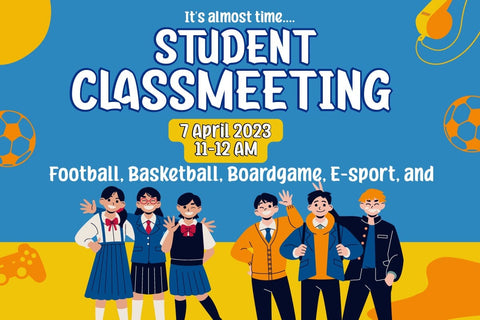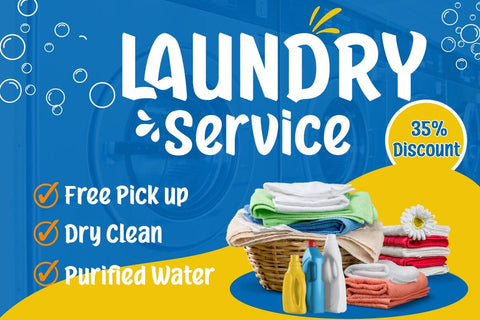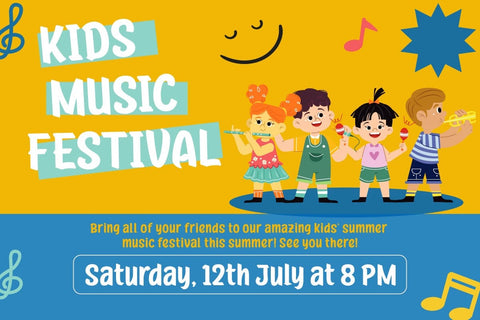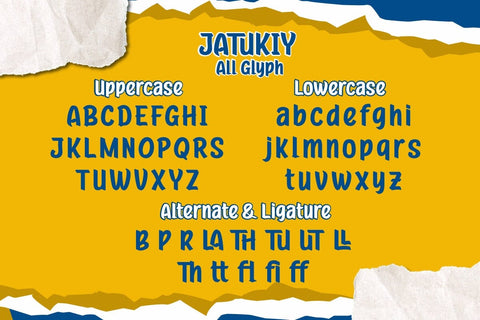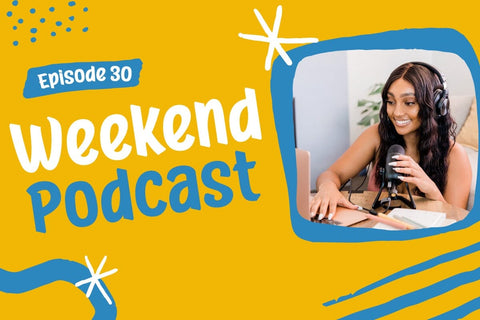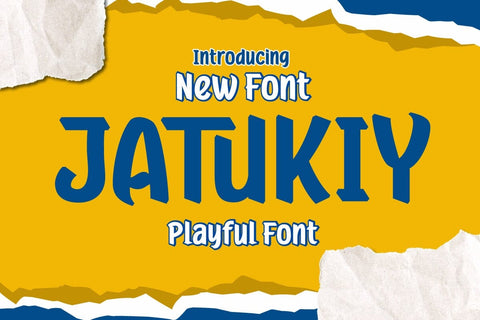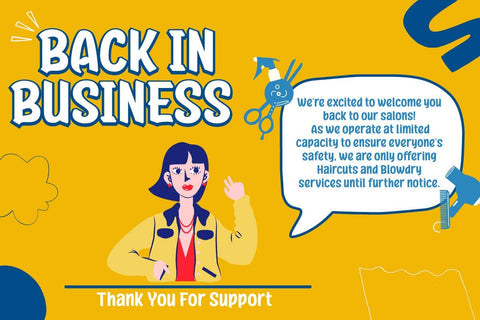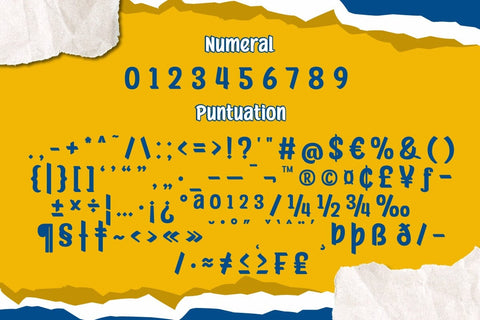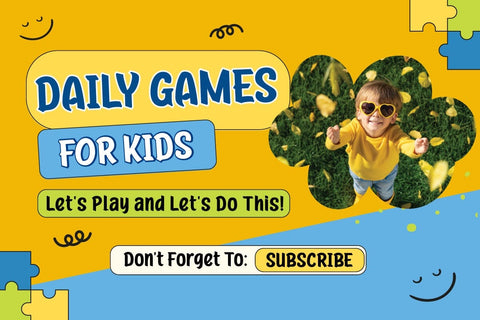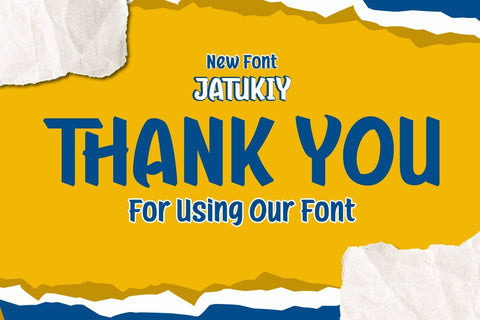
Jatukiy Font
Introducing “JATUKIY Font” – Unleash Playful Creativity!
Meet JATUKIY Font, your passport to a world of playful design possibilities. Designed with a whimsical touch, this display font brings a burst of fun to your projects.
JATUKIY Font is your go-to choice when you want to infuse energy and a hint of cheekiness into your designs. Whether it’s children’s books, party invitations, or anything that needs a playful twist, this font is your creative ally.
The distinctive style of JATUKIY Font is a visual treat. Its playful, bouncy characters instantly grab attention and leave a lasting impression. Let your designs speak volumes with the lighthearted charm of JATUKIY Font.
Crafted with precision, this font’s unique design ensures that your message is delivered with a delightful twist. It adds a touch of humor and personality, making your content unforgettable.
With JATUKIY Font, you have the power to create designs that stand out from the crowd. Infuse your projects with creativity, laughter, and a dash of whimsy, all with the help of JATUKIY Font. Elevate your design game and let your imagination run wild with this playful typeface.